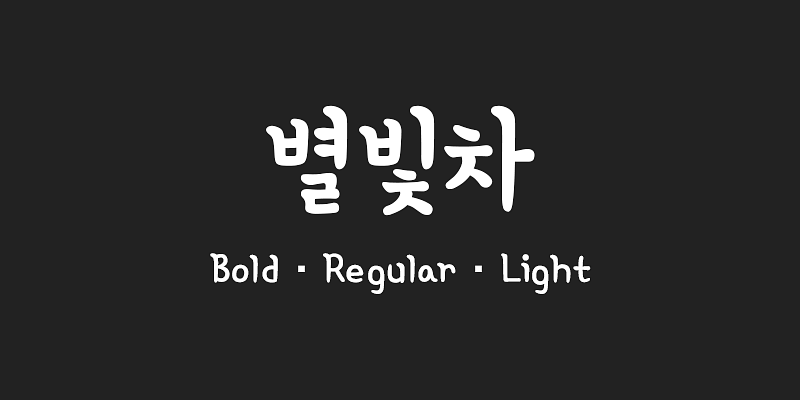
210 Byulbitcha Font Free Download is a stylish and delicate Korean display font that blends handwritten charm with a celestial, dreamy personality. The name “Byulbitcha” (별빛차) translates roughly to “Starlight Tea,” and the font beautifully captures that ethereal mood with its soft curves, airy letterforms, and gentle rhythm. It’s ideal for stationery, branding, book covers, lifestyle products, and designs that aim for a romantic or whimsical tone.
210 Byulbitcha Font Free Download features Hangul characters with a slightly organic, casual flair, paired with clean Latin letters that make it perfect for bilingual compositions. Its balanced spacing and legibility allow it to shine in titles, quotes, product packaging, and promotional materials—especially those in fashion, beauty, or artisanal markets.
Soft, poetic, and full of visual charm—210 Byulbitcha Font is the perfect choice when your design needs a graceful and starry-eyed touch.